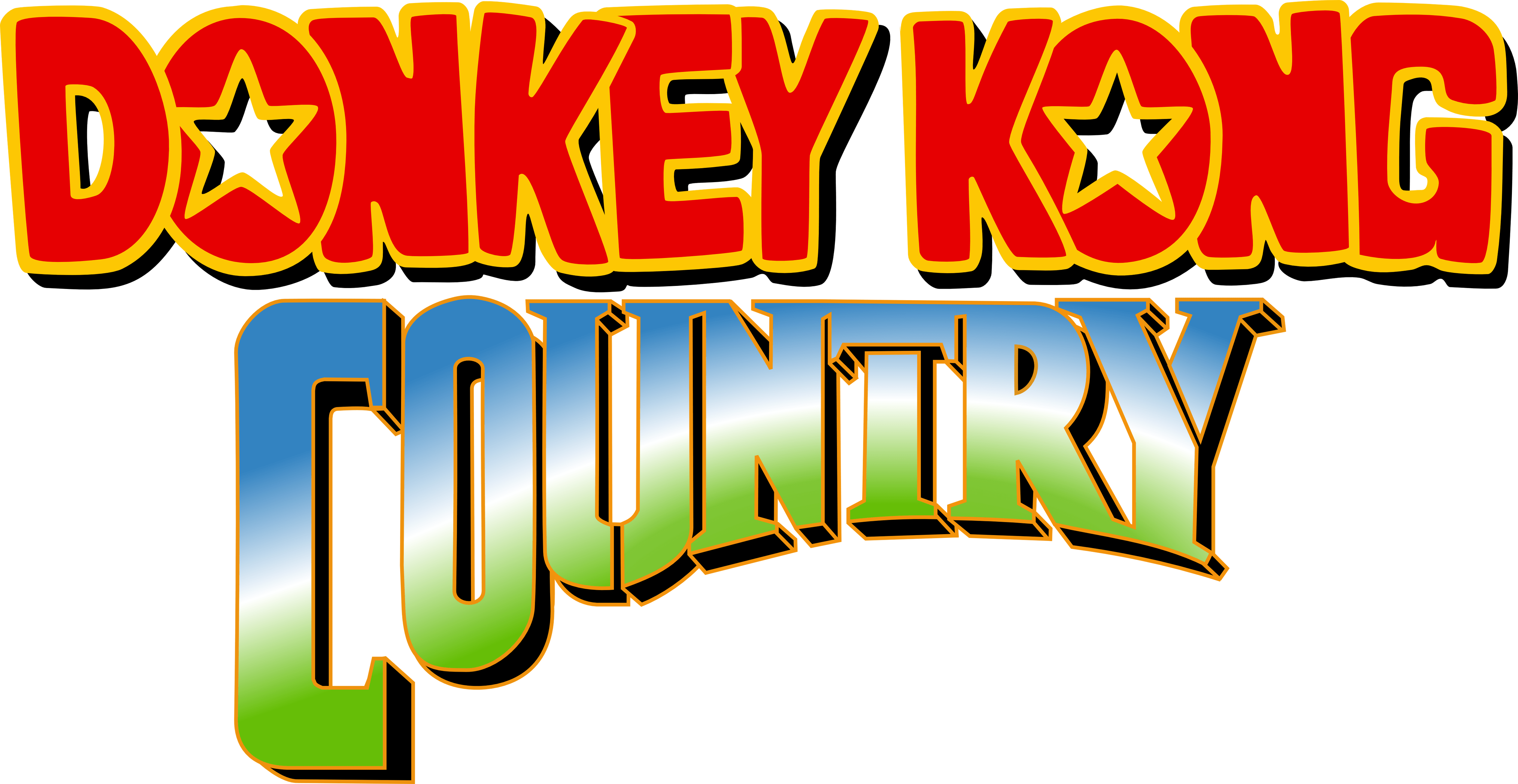
Donkey Kong Country 1 Font
Donkey Kong Country 1 Font. Donkey kong is a video game first released by nintendo on july 9, 1981. Fonts pool text generator is an amazing tool, that help to generate images of your own choice fonts.
The Lettering For The Donkey Kong Logo, Which Features A Star In The Letter “O”, Is Very Similar To A Font Named Jumpman By Neale Davidson.